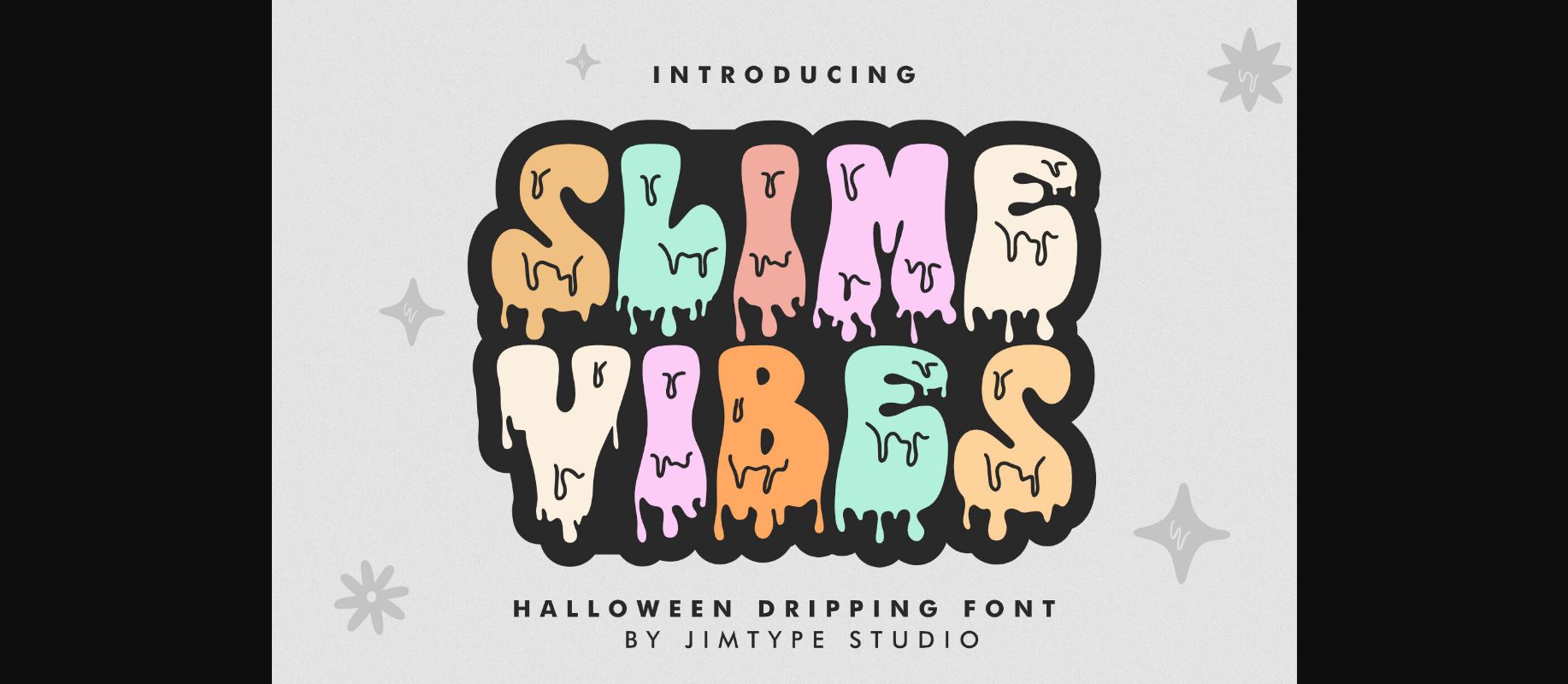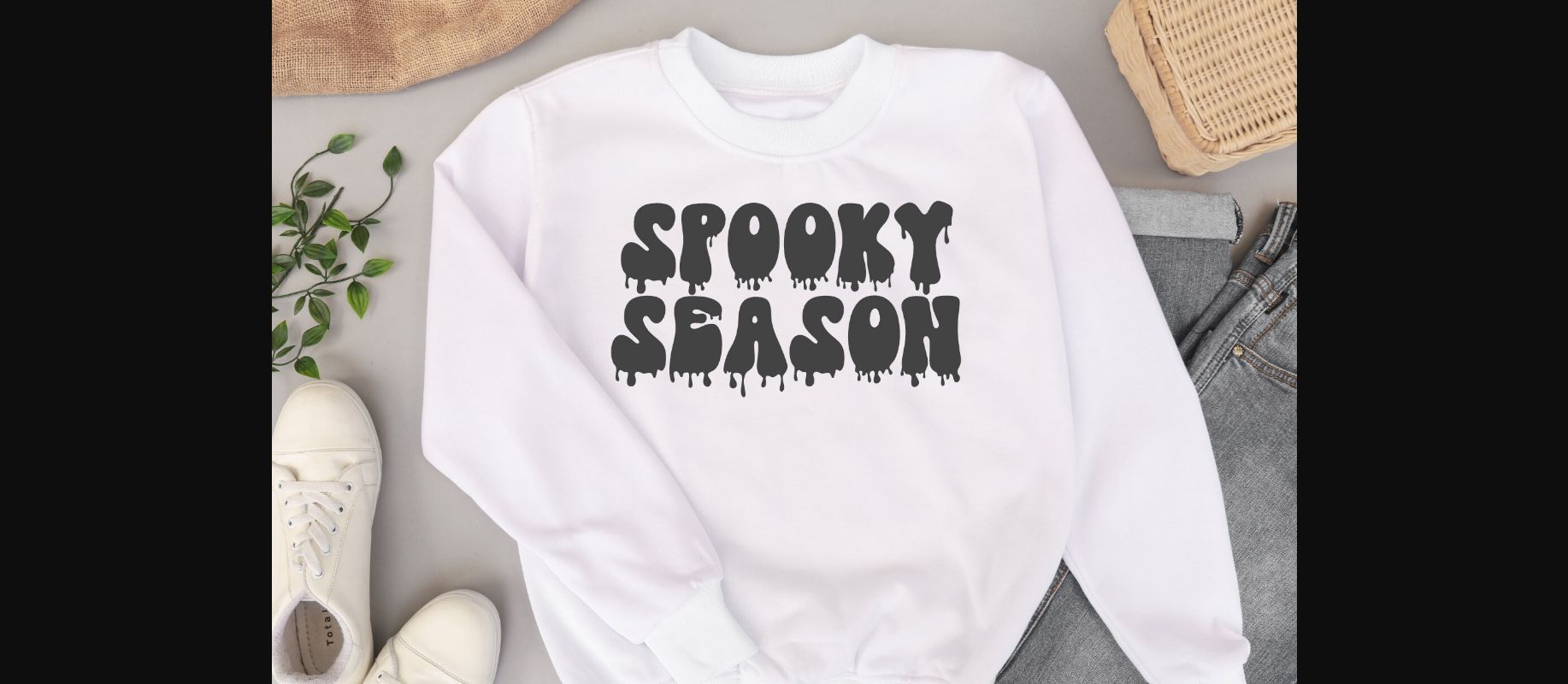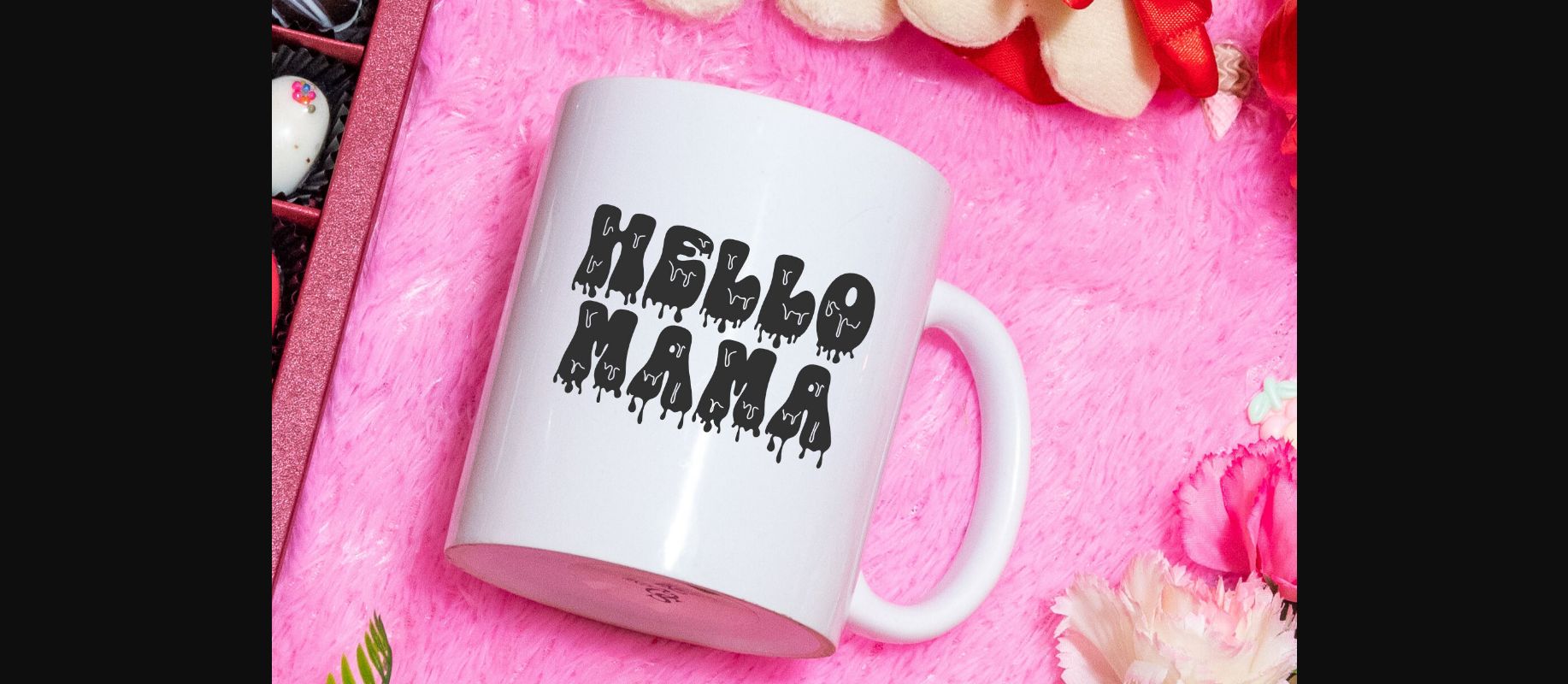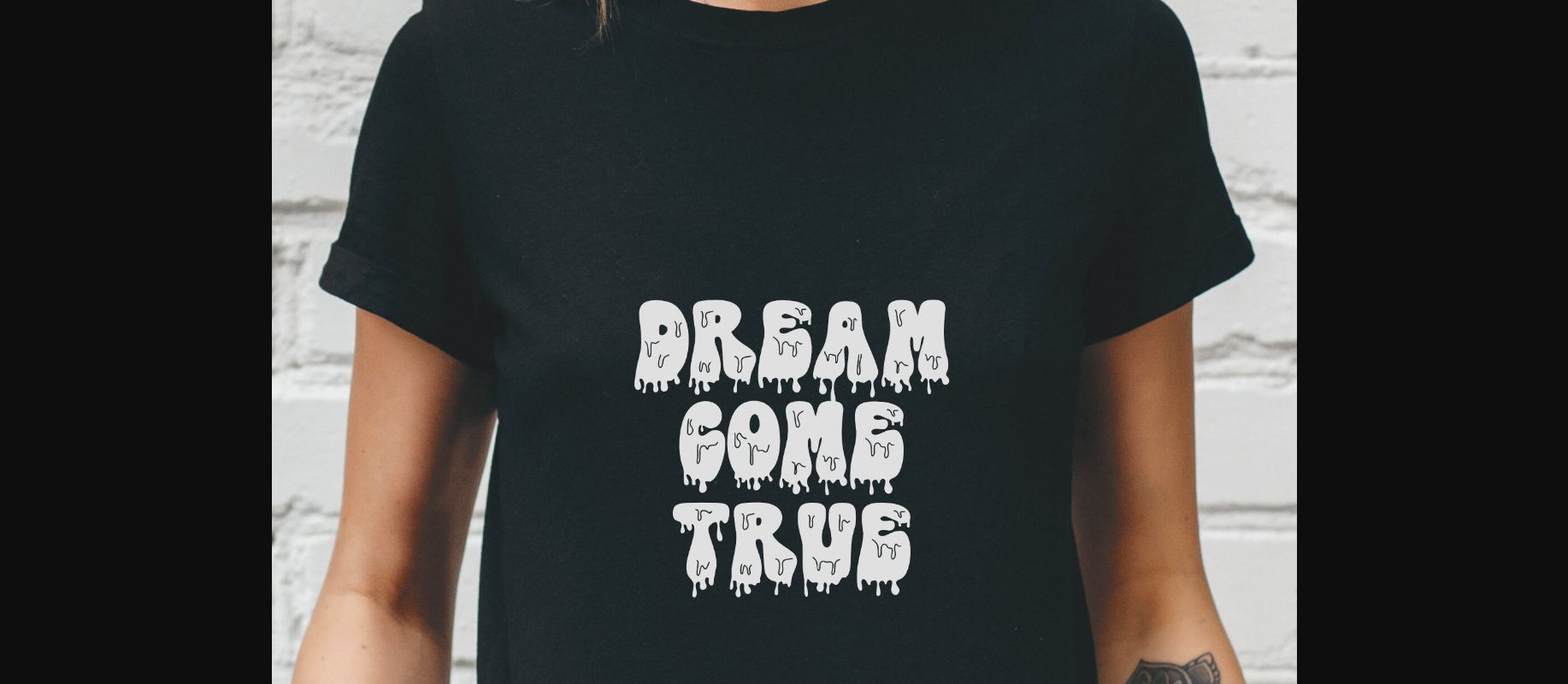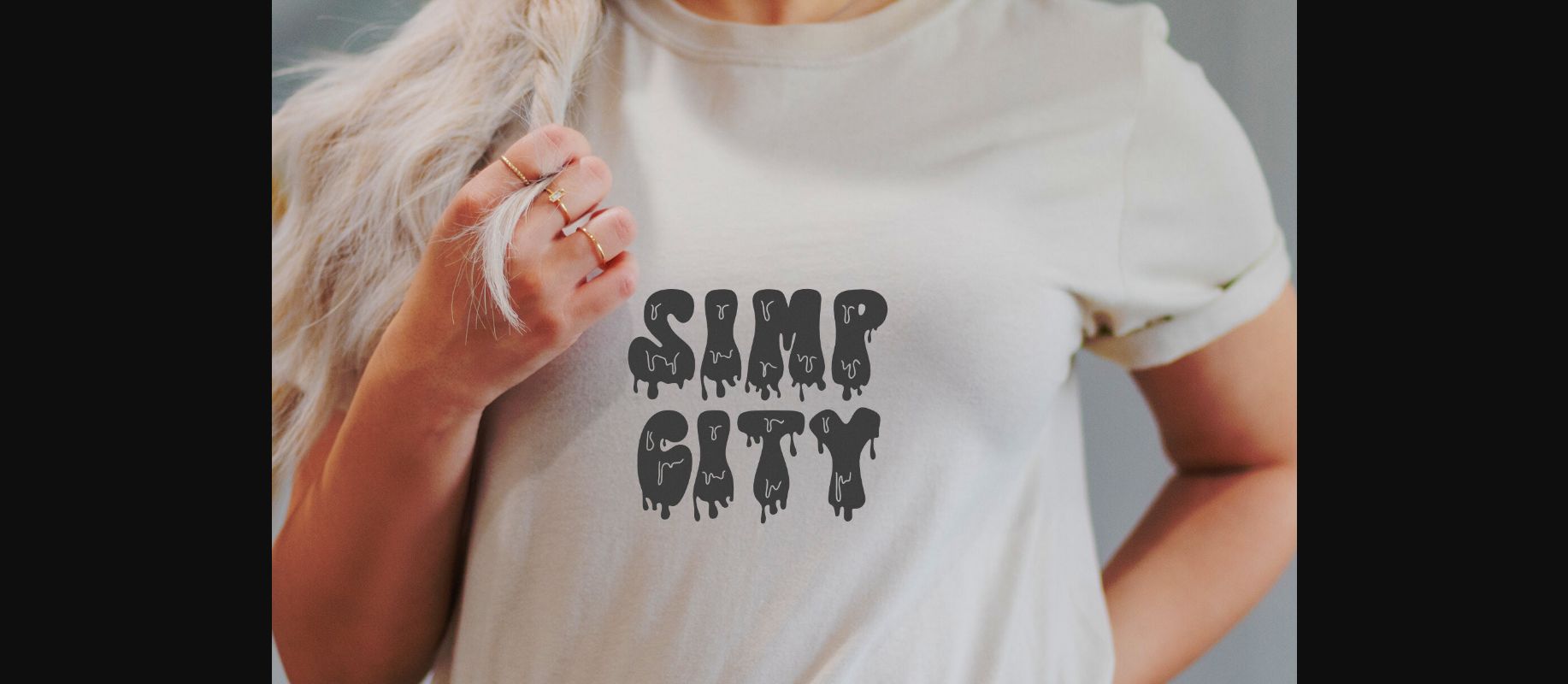
Slime Vibes Font
About Slime Vibes Font
Welcome to the ‘Slime Vibes’ Font – where Halloween meets grooviness! Our dripping and quirky font adds a playful twist to your designs, making them ooze with fun and spooky vibes. Whether you’re working on Halloween invitations, posters, or anything in between, ‘Slime Vibes’ is your secret ingredient. Explore our font collection now and get ready to create designs that are dripping with creativity and bursting with personality.